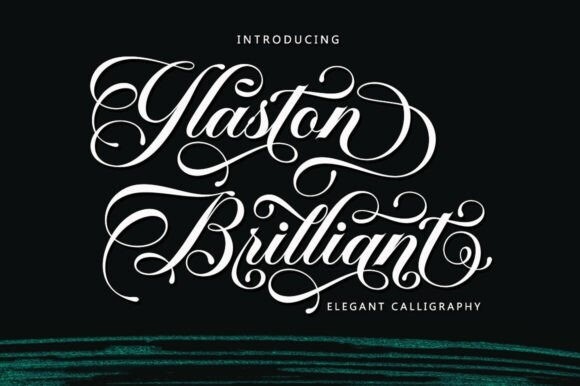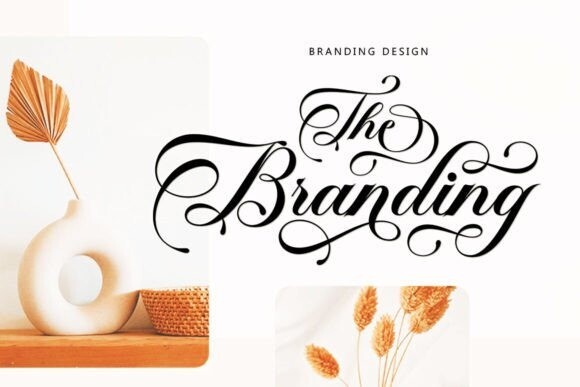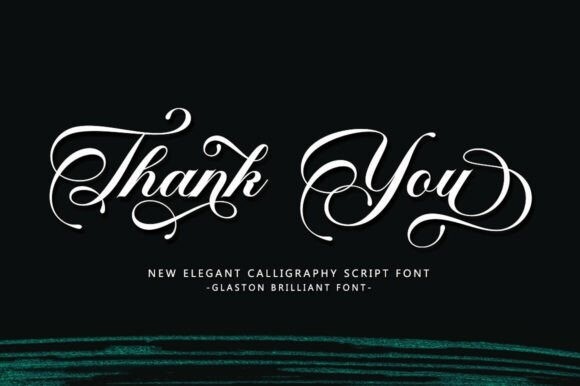
Glanston Brilliant Font
Glanston Brilliant Font is an Elegant script font that comes with a very beautiful character change, a type of classic copper decorative script with a luxurious touch, designed with great detail to present an elegant style.
Glanston Brilliant is attractive because the typeface is pleasing to the eye, clean, feminine, sensual, glamorous, simple, and very easy to read, thanks to the many luxurious letter connections. I also offer a number of viable stylistic alternatives for some letters. The classic style is very suitable to be applied in various formal forms such as invitations, labels, restaurant menus, logos, fashion, makeup, stationery, novels, magazines, books, greeting/wedding cards, packaging, labels, or all kinds of advertisements.